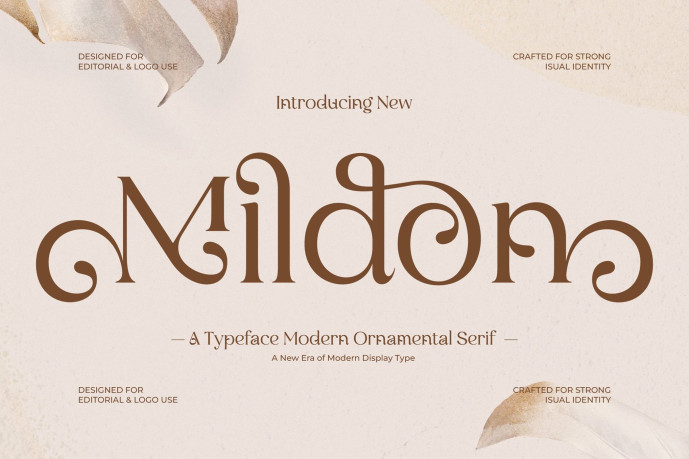
Mildon Font
Designer: Jaruka
Mildon Font – modern serif Font is a unique, modern display font with a unique, elegant, and modern style. It is a display font perfect for branding projects, logos, social media posts, product packaging, labels, etc.